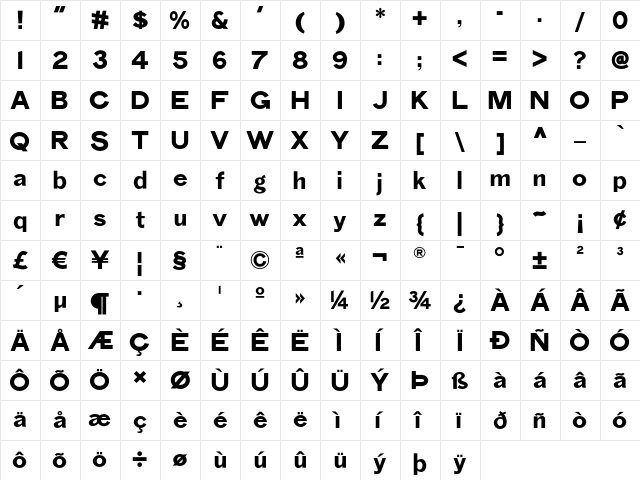
Cerulean NF Regular
Design Context for Cerulean NF Typeface
Cerulean NF offers clean, dependable letterforms without strong stylistic allegiance, making it a practical choice for designers who need flexibility.